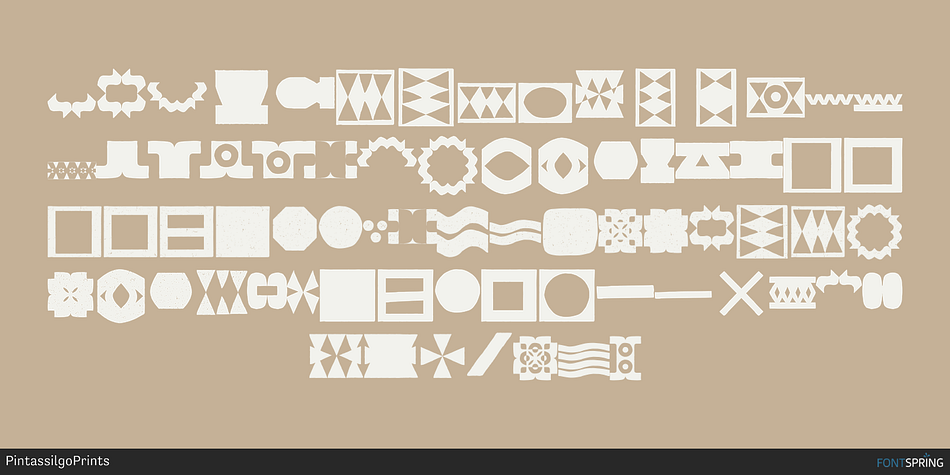
Kokoschka Extras Regular
Kokoschka is a multiple classification font family. This typeface has four styles and was published by PintassilgoPrints.
Dense and strong, this family is inspired by the lettering on the poster of a short expressionist play by the astonishing and highly skilled Austrian painter, printmaker and writer Oskar Kokoschka in 1909.
If the typeface itself is already deeply vigorous, the font programming makes it shine, making great use of OpenType features. Contextual Alternates will cycle alternate glyphs, providing a more realistic handlettered feel. Ligatures will not only trigger special glyphs, but also build new combinations through a smart kerning adjustment. And yet there are also some stylistic alternates to add that extra-twist.
The family counts with a nice textured version, also an oblique and a very handy assortment of extras, making this family an impressive toolbox for expressive designs.